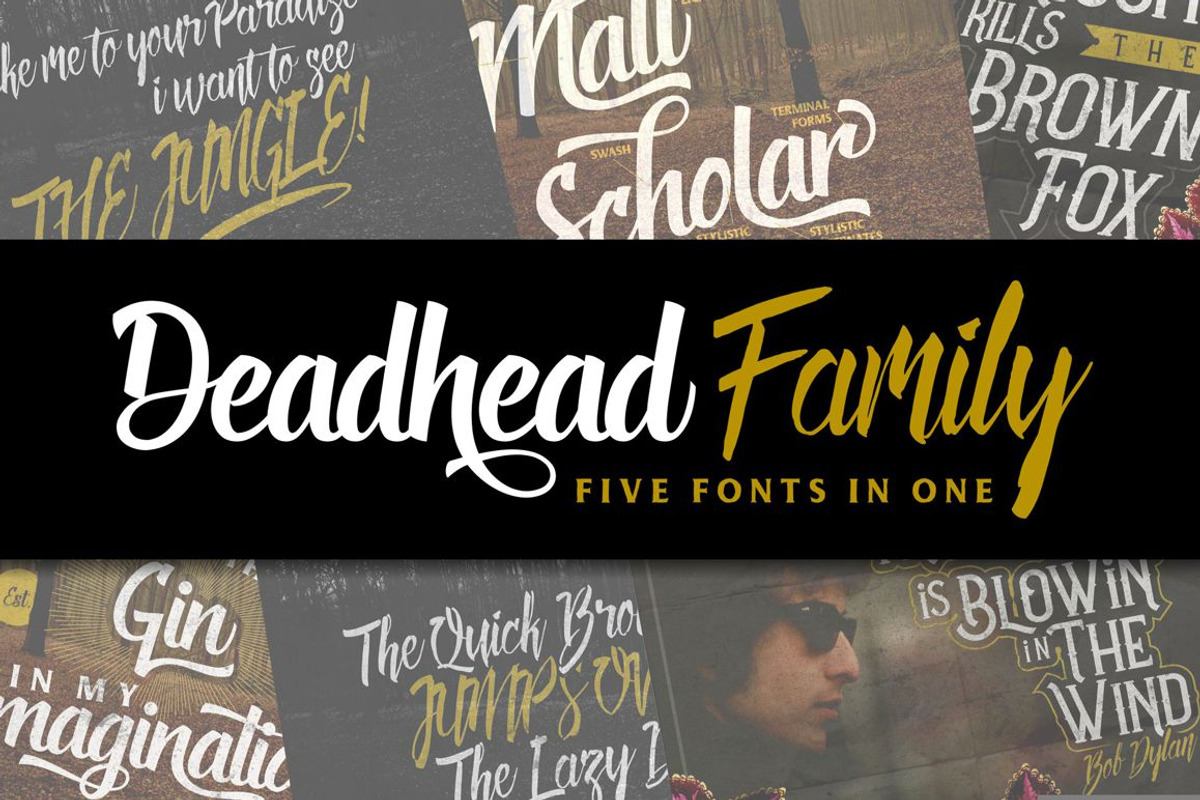
Deadhead Font Free Download is a bold, vintage-inspired typeface family that blends rock 'n' roll attitude with retro charm. With its heavy strokes, quirky curves, and psychedelic flair, Deadhead is perfect for posters, album covers, band merch, apparel design, and projects that need a loud, expressive visual style.
The typeface family includes a variety of weights and styles—ranging from regular to textured and outlined versions—giving you the freedom to build layered, dynamic typography. It features uppercase letters, numerals, punctuation, and stylistic alternates for extra creative control.
Whether you're designing for a music festival, retro brand, or standout headline, Deadhead Font Free Download delivers energy and edge. Try it out in personal or concept projects, and don’t forget to grab the appropriate license for any commercial use. Rock your next design with the rebellious spirit of this bold and unforgettable typeface family.